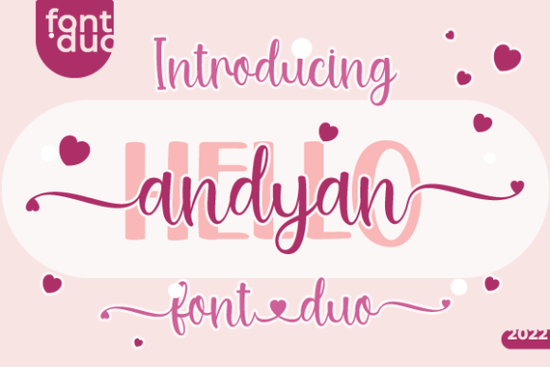
If you’ve been searching for a pair of fonts that feel personal, stylish, and easy to work with, the Hello Andyan Duo Font might be exactly what your next project needs. It’s not flashy or overcomplicated just two clean, handwritten styles (a script and a sans serif) that were made to look great together. Whether you’re designing greeting cards, branding a small shop, or personalizing mugs and tote bags, these fonts bring a cheerful, modern touch without getting in the way.
What makes this duo font different from others?
Most font pairs try to match but not all actually feel like they belong together. With Hello Andyan, the script and sans serif were drawn side by side, so their weights, curves, and spacing naturally complement each other. You don’t have to guess which sans goes with which script. They already do.
Another thing you’ll appreciate: full PUA encoding. That means every special character, alternate glyph, and ligature is accessible right from your design software no extra plugins or font managers needed. If you’ve ever struggled to find swashes or stylistic alternates in other handwritten fonts, this one removes that frustration.
Who is this font best for?
This isn’t a font for corporate reports or legal documents. It’s for creators who want warmth and personality in their work:
- Crafters making vinyl decals, embroidery patterns, or scrapbook layouts
- Small business owners designing logos, packaging, or social media graphics
- Hobbyists who enjoy making birthday cards, party invites, or custom gifts
If you liked the playful bounce of Fancy Script or the casual charm of Golfmind, you’ll feel right at home here. The script has enough movement to feel hand-lettered, but it’s still legible at smaller sizes a rare balance.
How do I use both fonts together without clashing?
The trick is contrast, not competition. Use the script for headlines, names, or short phrases where you want to add flair. Then switch to the sans for supporting text think dates, locations, product descriptions, or captions. Because they share the same underlying rhythm, even mixing them in the same line (like “Hello Emily!”) looks intentional, not messy.
You can also layer them. Try placing the script slightly above or below the sans in a stacked layout. Or use one color for the script and a softer tone for the sans to create visual hierarchy without losing harmony.
Looking for something similar? Check out the breezy pairing in Malibu Holiday or the bold energy of Never Brat. But if you want something that feels effortlessly coordinated, Hello Andyan stands out for its quiet confidence.
Any tips for getting the most out of these fonts?
A few small things go a long way:
- Don’t over-style. The script already has natural variation. Adding too many effects (like heavy shadows or outlines) can muddy its charm.
- Pair with simple imagery. These fonts shine when they’re allowed to breathe. Avoid busy backgrounds or competing textures.
- Test readability. At very small sizes (under 12pt), the script may lose clarity. Stick to the sans for body text or fine print.
- Explore the alternates. Open your font panel and toggle through stylistic sets you’ll find subtle variations that can refresh your design in seconds.
Whether you’re updating your brand, prepping holiday crafts, or just refreshing your font library, Hello Andyan Duo Font offers a friendly, functional solution. It doesn’t shout it smiles. And sometimes, that’s exactly what your project needs.